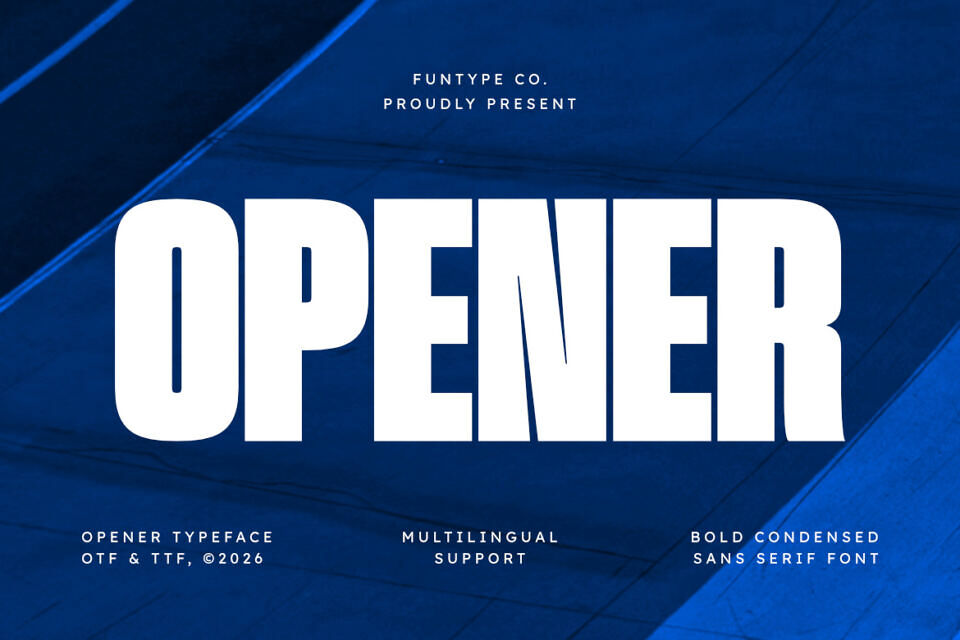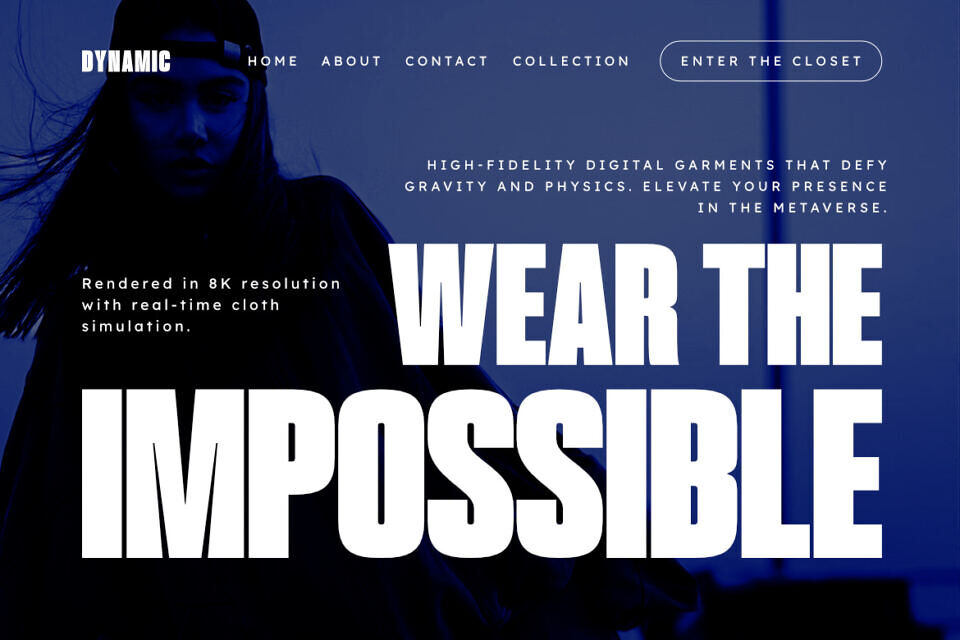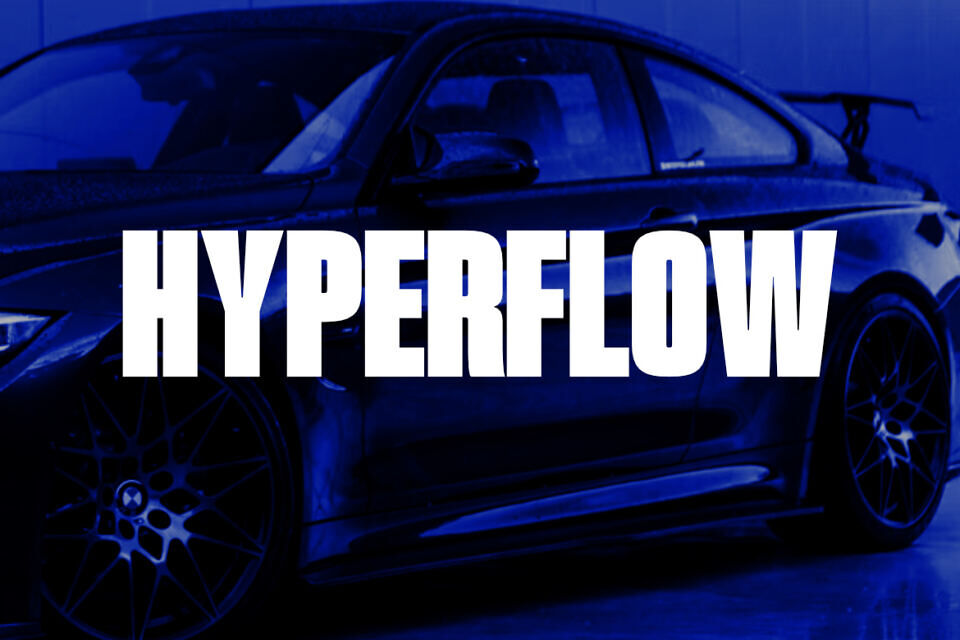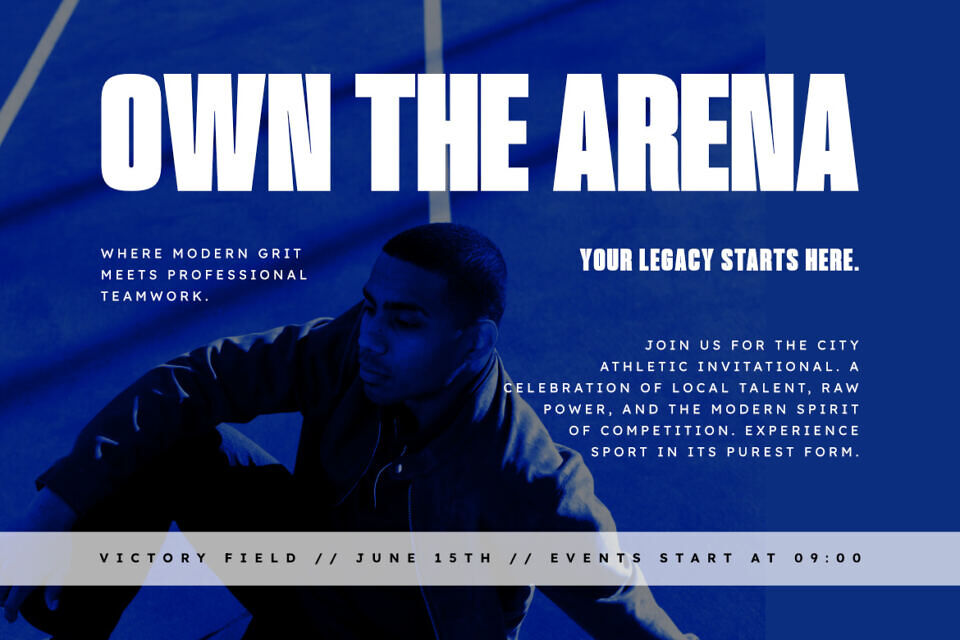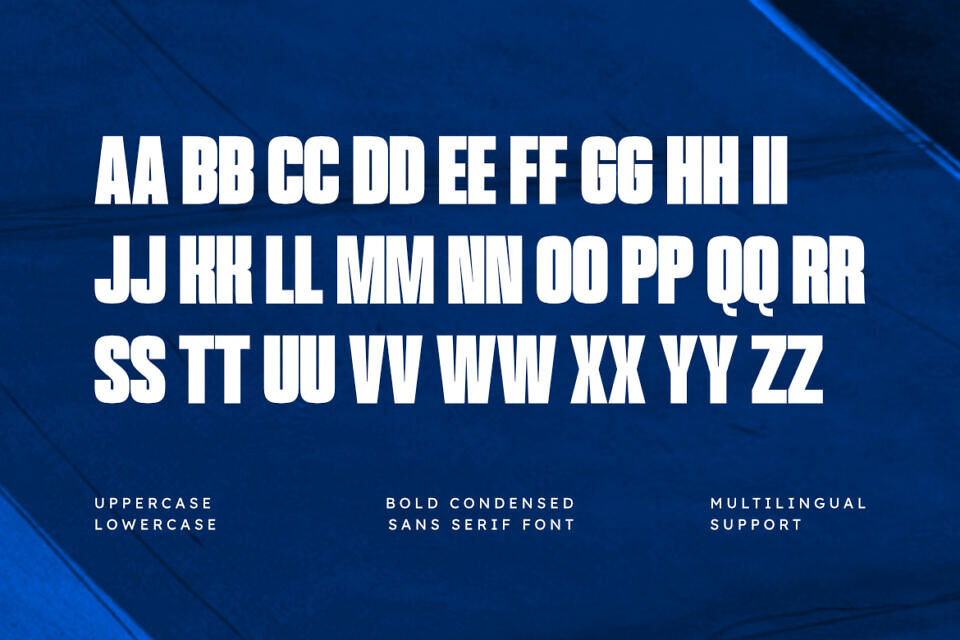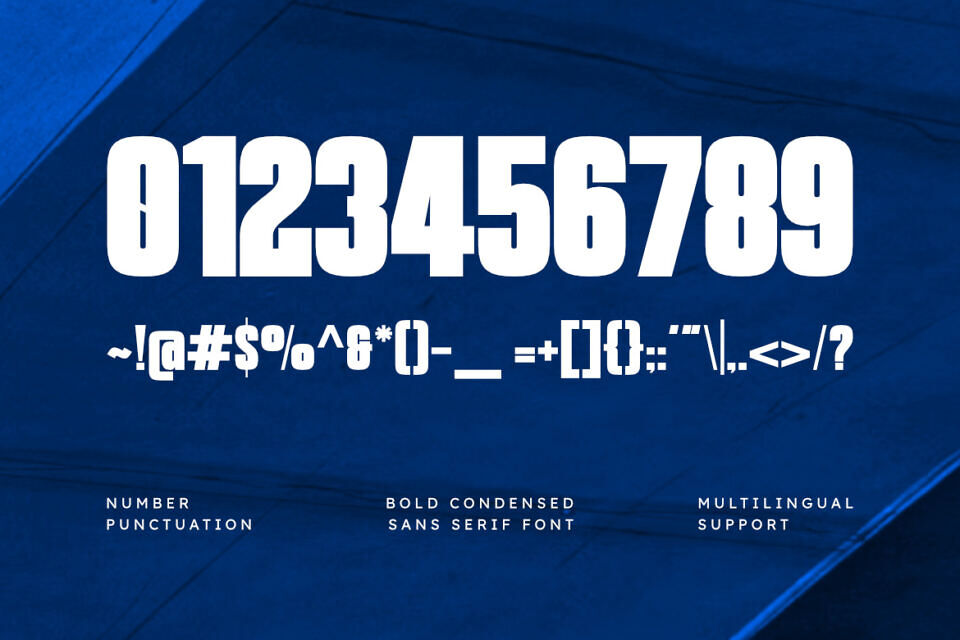
Opener Font
Opener is a sophisticated and powerful bold condensed sans serif font, thoughtfully designed to capture the essence of maximum visual impact and contemporary storytelling. With its heavy, ultra-compressed structure and clean geometric lines, Opener offers a professional aesthetic that brings a touch of commanding presence to any creative project.
Whether you are crafting a striking athletic brand identity, a sleek e-sports logo, or bold cinematic layouts, Opener provides a seamless blend of modern edge and competitive power.